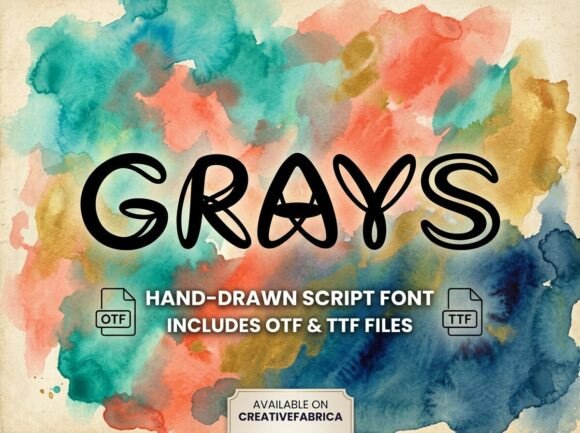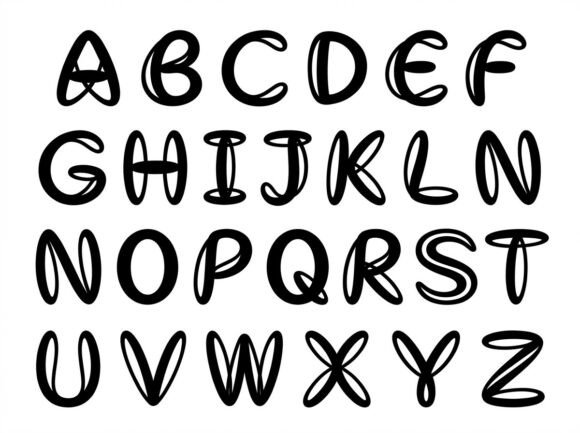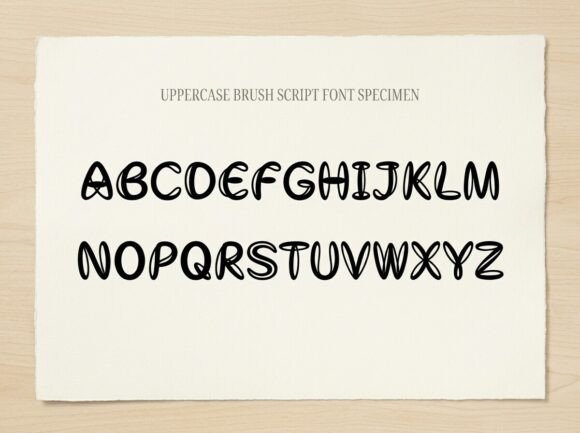
The Ultimate Guide to Grays Font: Elevate Your Designs with a Stunning Display Font
Have you ever been in the middle of a design project, pouring your heart and soul into it, only to hit a creative roadblock because you just can’t find the right font? I know I have! It was during one of those frustrating moments that I stumbled upon Grays Font, a game-changing decorative display font that’s been a revelation for my designs. If you’re a designer, crafter, or creative hobbyist looking to make a statement with your typography, you’re in the right place!
First Impressions: What Makes Grays Font Special
Grays Font is not just any font; it’s a stunning decorative display font designed to be the center of attention. With its unique artistic elements and strong visual personality, it’s perfect for creators who want to break away from the ordinary. This font is versatile enough for bold headlines, artistic logos, and creative packaging, while maintaining a professional and polished finish.
- ✨ Unique and artistic design that’s sure to turn heads.
- ✅ Professional and polished finish, perfect for high-end designs.
- 💥 Versatile and can be used for a variety of design projects, from headlines to logos.
⚠️ IMPORTANT NOTE BEFORE PURCHASE: Grays Font is an ALL-CAPS (Uppercase Only) display typeface. It does not include lowercase letters. This might be a limitation for some users, but it’s specifically designed for high-impact headlines, logos, and decorative initials where every letter is a work of art.
While the actual designer of Grays Font remains a mystery, it’s clear that they were inspired by the world of art and design. With its unique artistic elements and strong visual personality, Grays Font is a testament to the power of creative typography.
Q: Is Grays Font suitable for body text?
A: No, Grays Font is specifically designed for high-impact headlines, logos, and decorative initials. Its large and artistic design makes it less suitable for body text.
Q: Does Grays Font include lowercase letters?
A: No, Grays Font is an ALL-CAPS (Uppercase Only) display typeface and does not include lowercase letters.